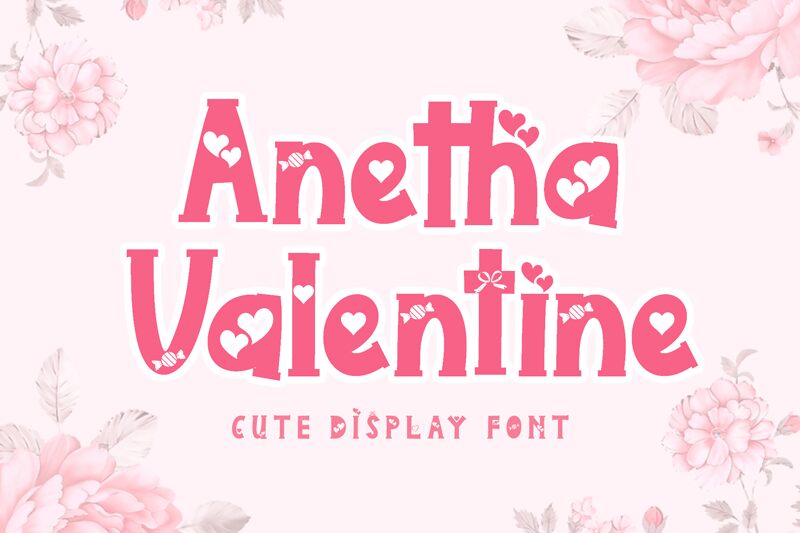
Anetha Valentine font by Yoga Letter embellishes your designs with a playful and lively atmosphere. The free font is romantic and charming, qualities which make it well-suited for various holiday projects. Its decorative style mixes modern visible line styles with youthful shapes and ends up presenting thematic elements that engage the eye and give the viewer a smooth visual experience.
Use Anetha Valentine in postcards, invitations, and stationery items. Moreover, it can be used in posters, advertisements, social media posts, and magazine titles. All packaging designs for your holiday-related products are also a favorable target.